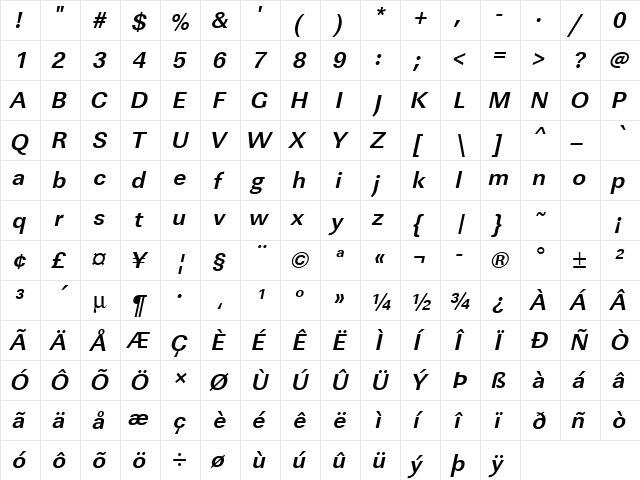
URWLinearT Bold Oblique Font Preview
Design Context for URWLinearT Typeface
URWLinearT offers clean, dependable letterforms without strong stylistic allegiance, making it a practical choice for designers who need flexibility. Its italic angle brings a sense of urgency and motion to the letterforms. The heavy weight commands attention and anchors typographic hierarchies.
Pro Tip: Try URWLinearT for annotation and caption copy alongside an upright companion — the contrast in angle creates a dynamic but ordered typographic system.